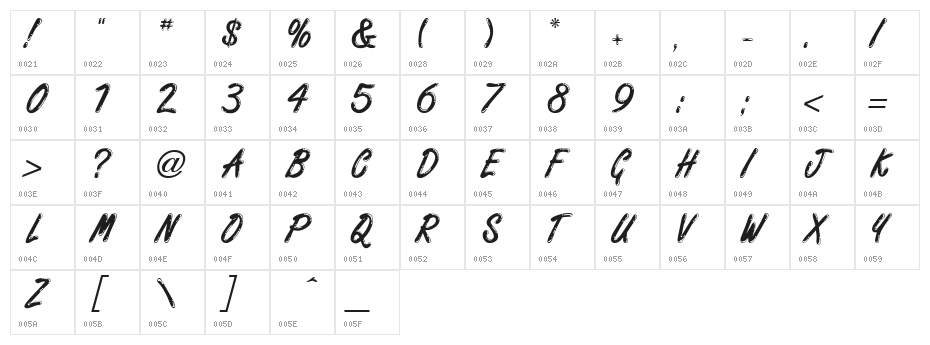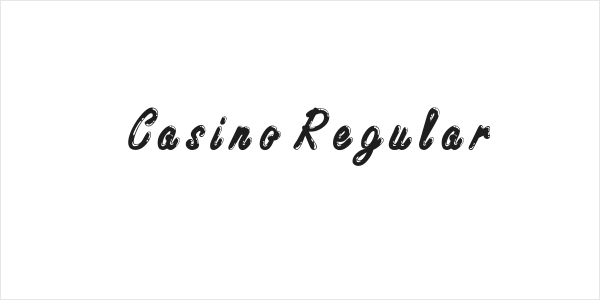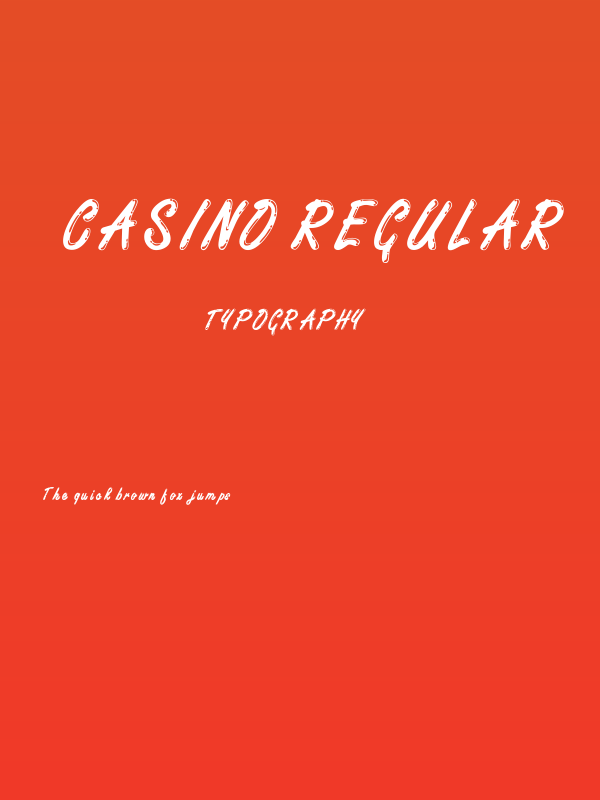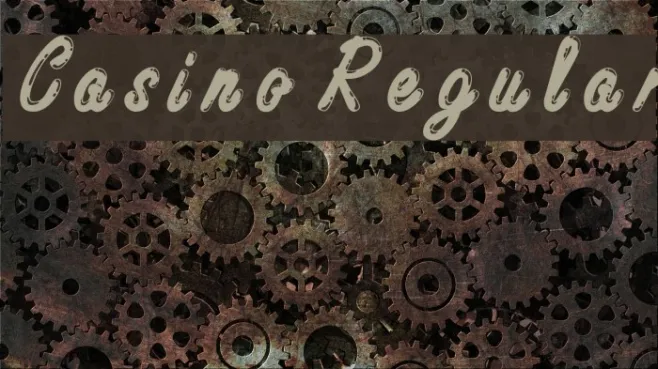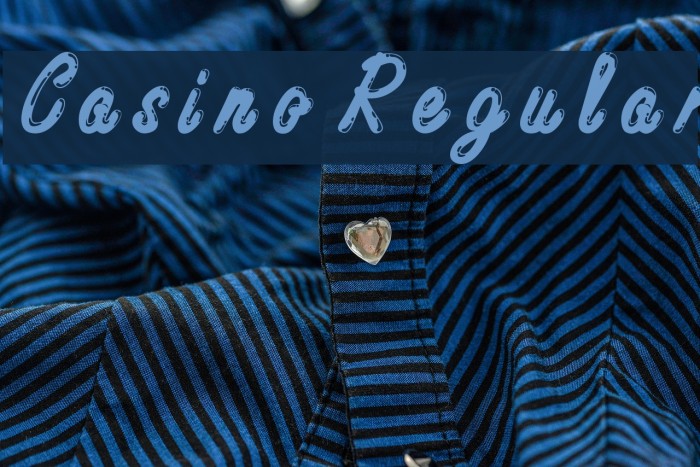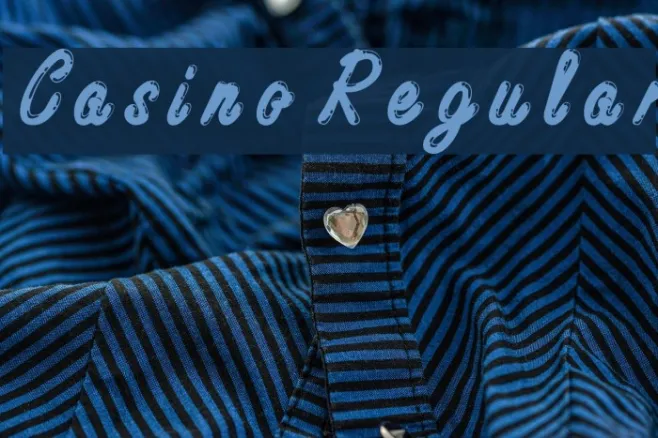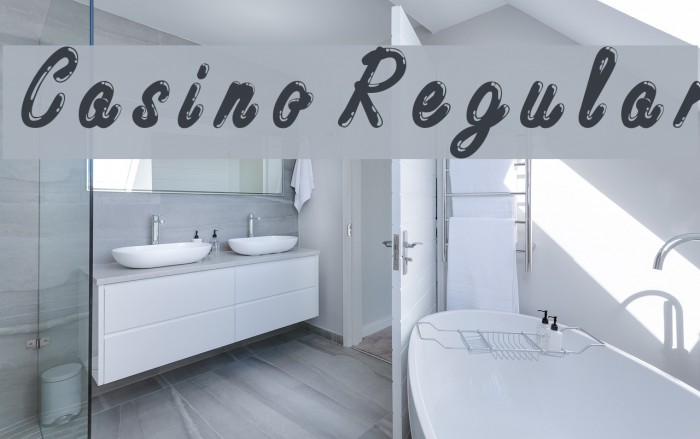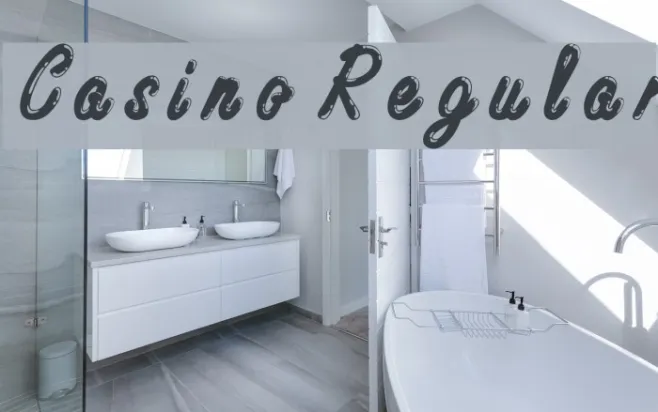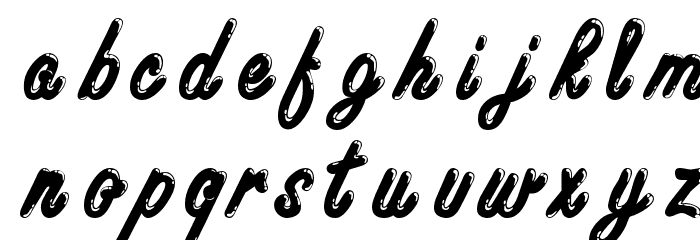
Casino Regular Font
Casino Regular Description
This font features a bold, cursive style with a playful and dynamic appearance. The letters are slightly slanted, giving a sense of motion and fluidity. Each character is outlined with a shadow effect, adding depth and a three-dimensional look. The strokes are thick and consistent, with rounded edges that soften the overall appearance. This font is reminiscent of vintage signage, evoking a sense of nostalgia and charm. The numbers and special characters maintain the same lively style, ensuring a cohesive look across all text elements.
| Overall Style | Vintage |
| Use Case | Logos, Headlines, Posters |
| Proposed Projects | Ideal for retro-themed designs, signage, posters, and branding that requires a touch of nostalgia and playfulness. |